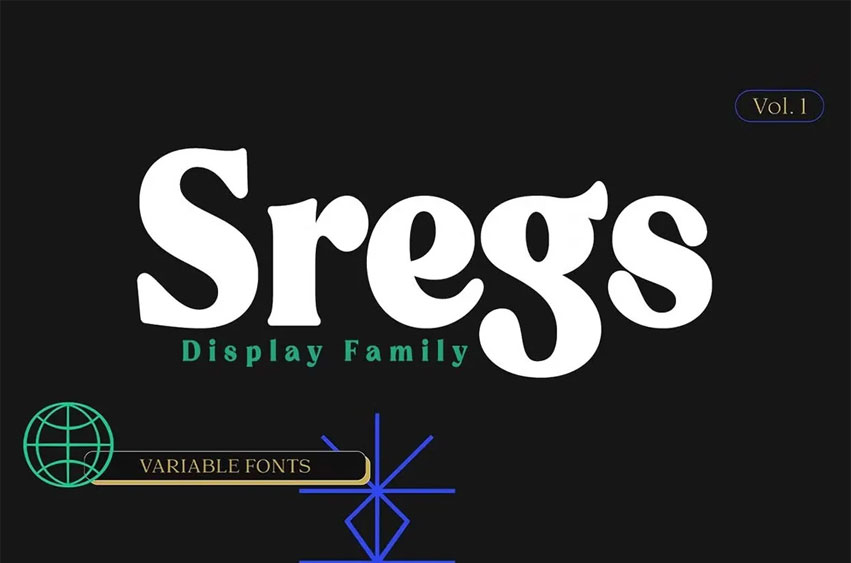
Sregs Font is an e-serif show serif font family that was inspired by 1960s-80s typography, yet features contemporary touches popular today. Soft transitions and reflexive serifs allow letters to be easy for readers to comprehend and recognize; there are 7 weight font designs (Standard as well as Italic) plus two font formats to help find your perfect style!
Billboard fonts were specifically created for use in branding and mass printing projects like billboards, signs, headlines, titles or written on short paragraphs of short length as book titles, page titles websites taglines logos etc. Each letter can be utilized individually to create designs or alter specific letters within text.